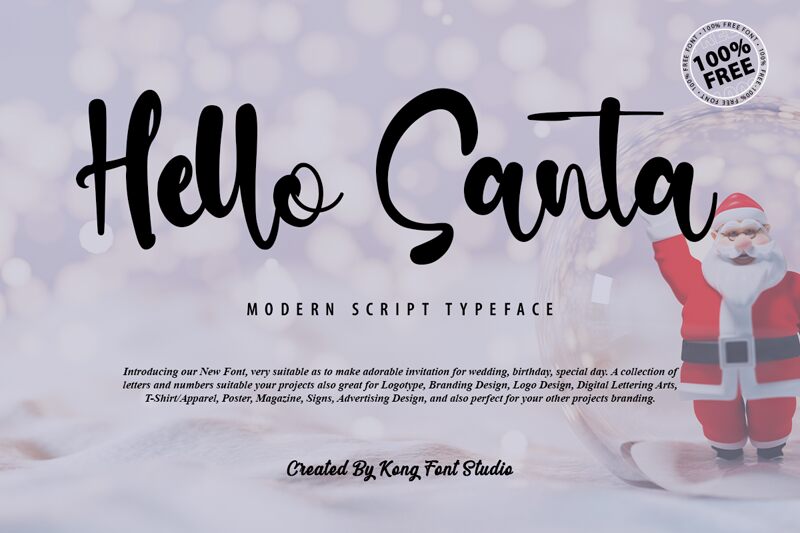
Hello Santa
Say hello to the festive and fun "Hello Santa" font, designed by Kong Font! This modern script typeface is perfect for adding a playful touch to holiday cards, invitations, or social media graphics. With its variable weight, you can easily switch up the thickness of your letters for added emphasis. Use Hello Santa to bring some cheer to your Christmas-themed projects or add a touch of whimsy to any design. Spread joy and warmth with every letter thanks to the charming and versatile Hello Santa font!